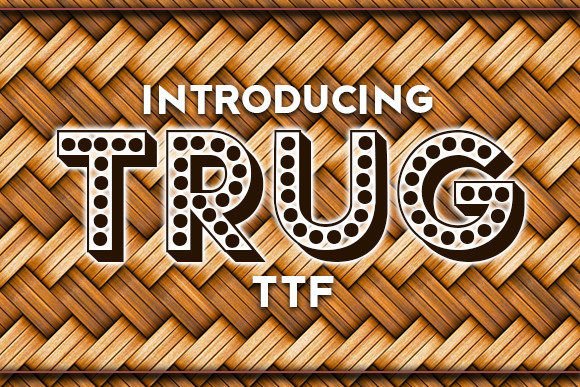
Trug Font
Behold the Trug Font, a decorative masterpiece that transforms your designs into captivating works of art! This font family, crafted by the visionary vladimirnikolic, draws inspiration from the classic title poster designs, injecting a touch of elegance and charm into your creations.
Embark on a typographical adventure, where each character dances across the page with style and grace. Let your imagination soar as you explore the endless possibilities that await. From flyers and posters to t-shirts and beyond, the Trug Font empowers you to create designs that capture attention and leave a lasting impression.
Unleash the captivating allure of your words with a font that embodies sophistication and finesse. Say goodbye to ordinary fonts and embrace the extraordinary with Trug. Its versatility knows no bounds, making it the perfect choice for a wide range of projects. From bold headlines that demand attention to intricate details that whisper of elegance, Trug elevates your designs to new heights of visual appeal.
With Trug at your fingertips, you'll find yourself drawn into a world of creativity and inspiration. Type becomes art, and your designs transform into masterpieces. Let your imagination roam free as you craft visuals that captivate and enchant.
Join the ranks of savvy designers who have unlocked the power of Trug Font. Experience the joy of creating designs that resonate with your audience, leaving them in awe of your typographical finesse. Embrace the beauty of Trug today and unlock a world of limitless creative possibilities.